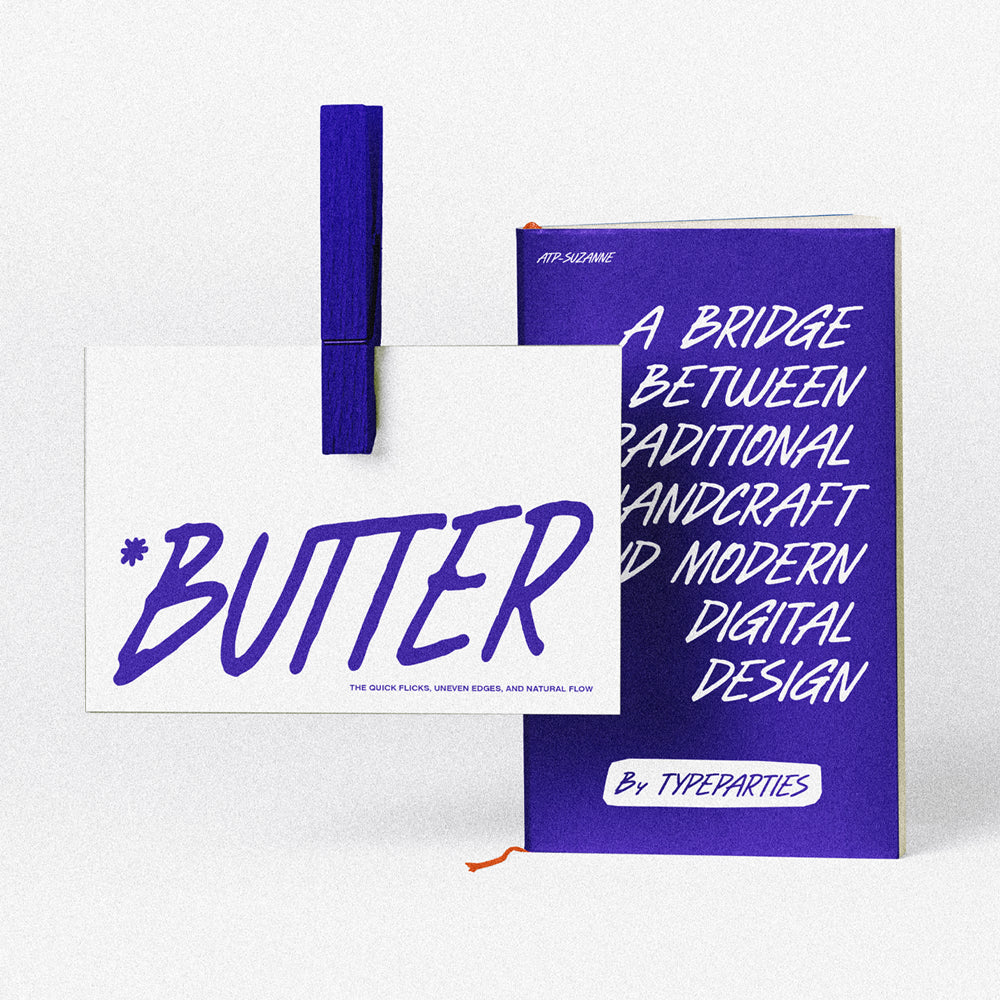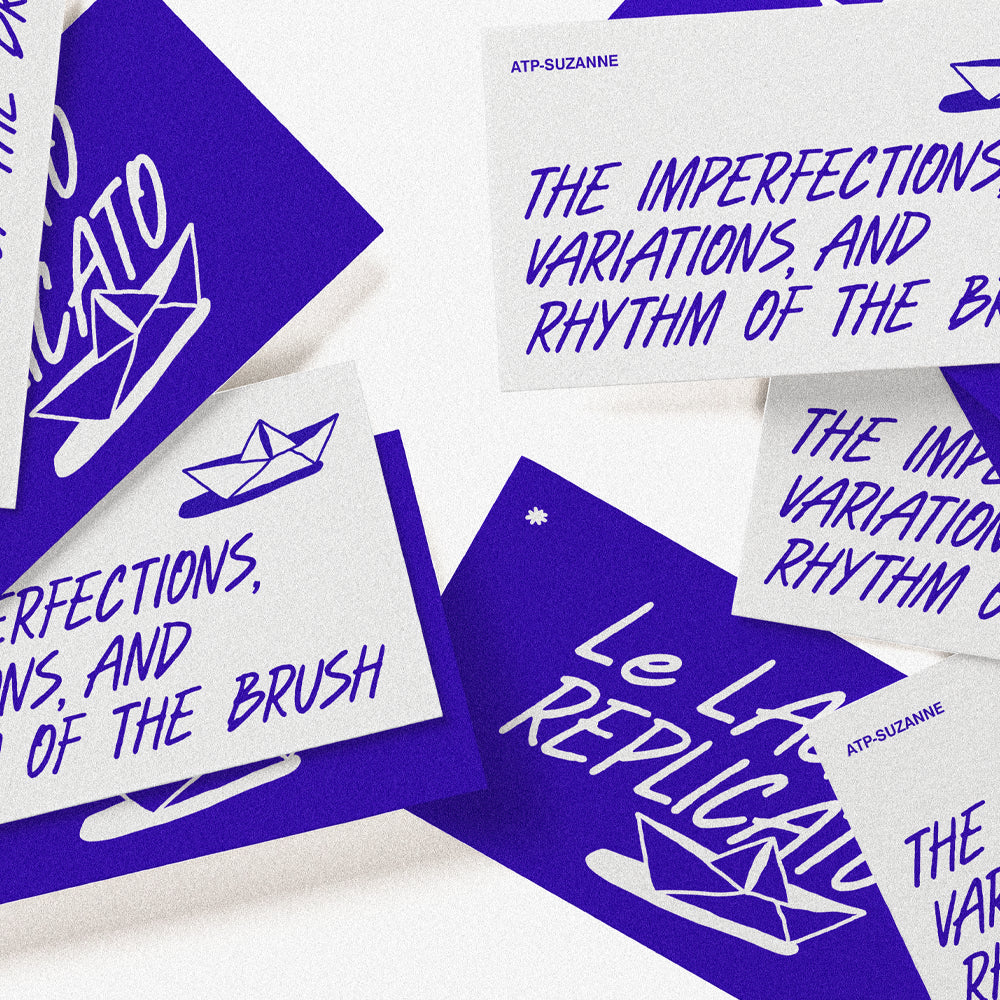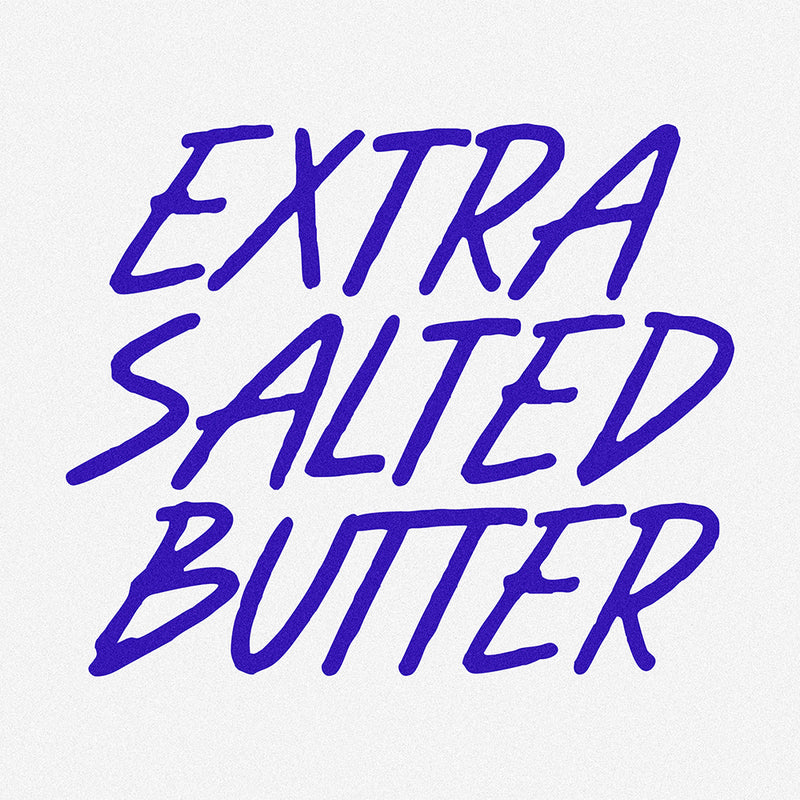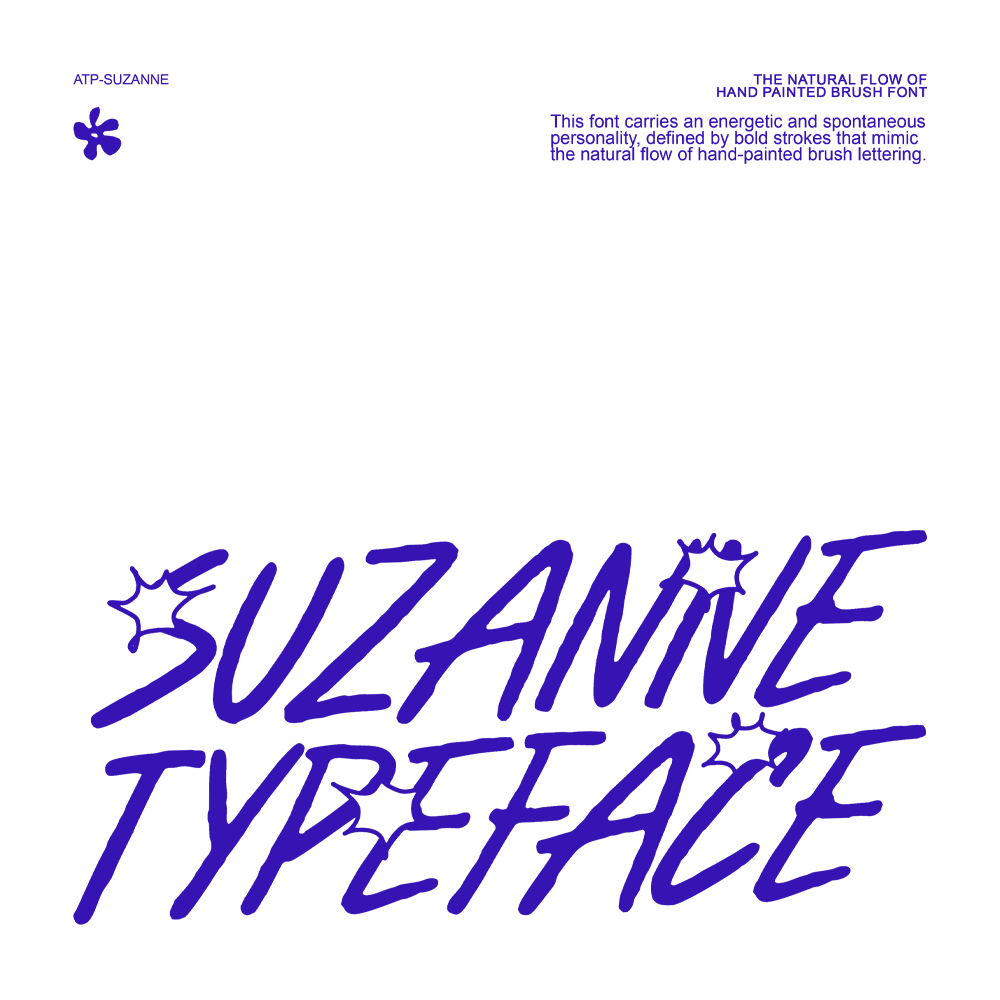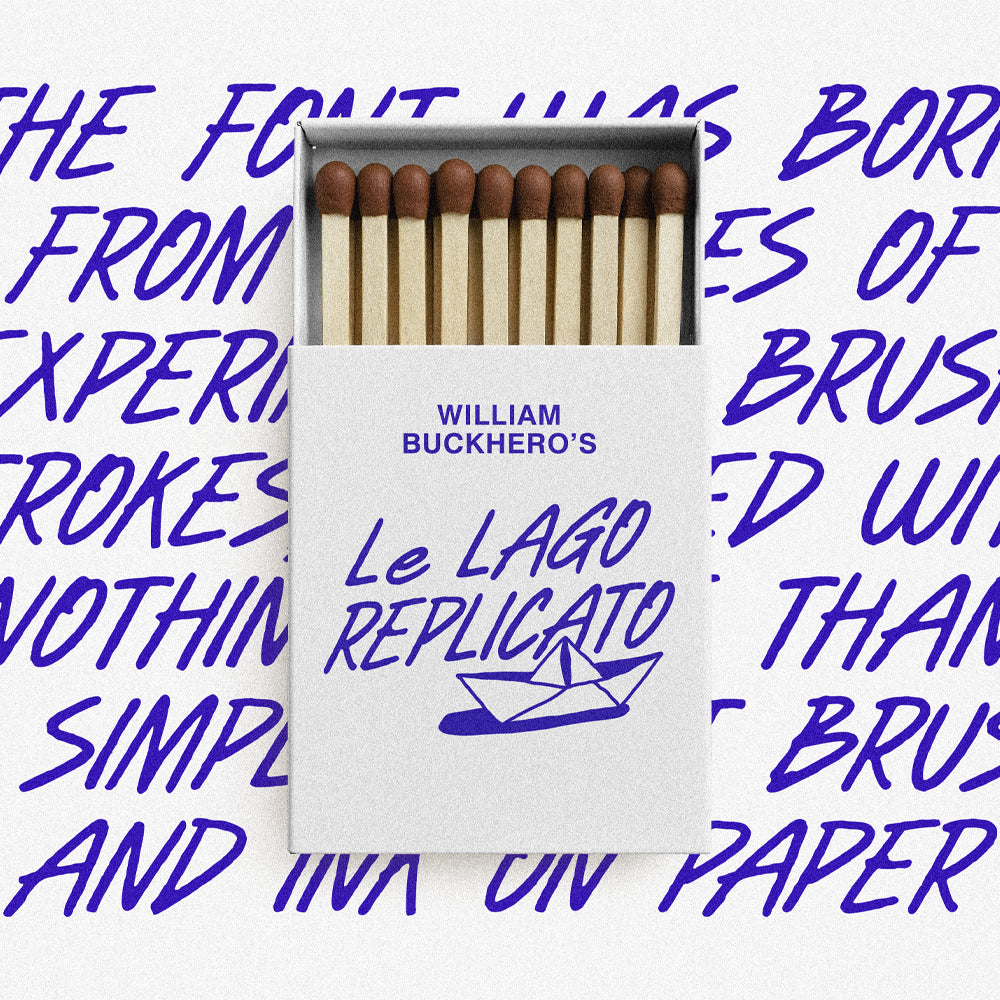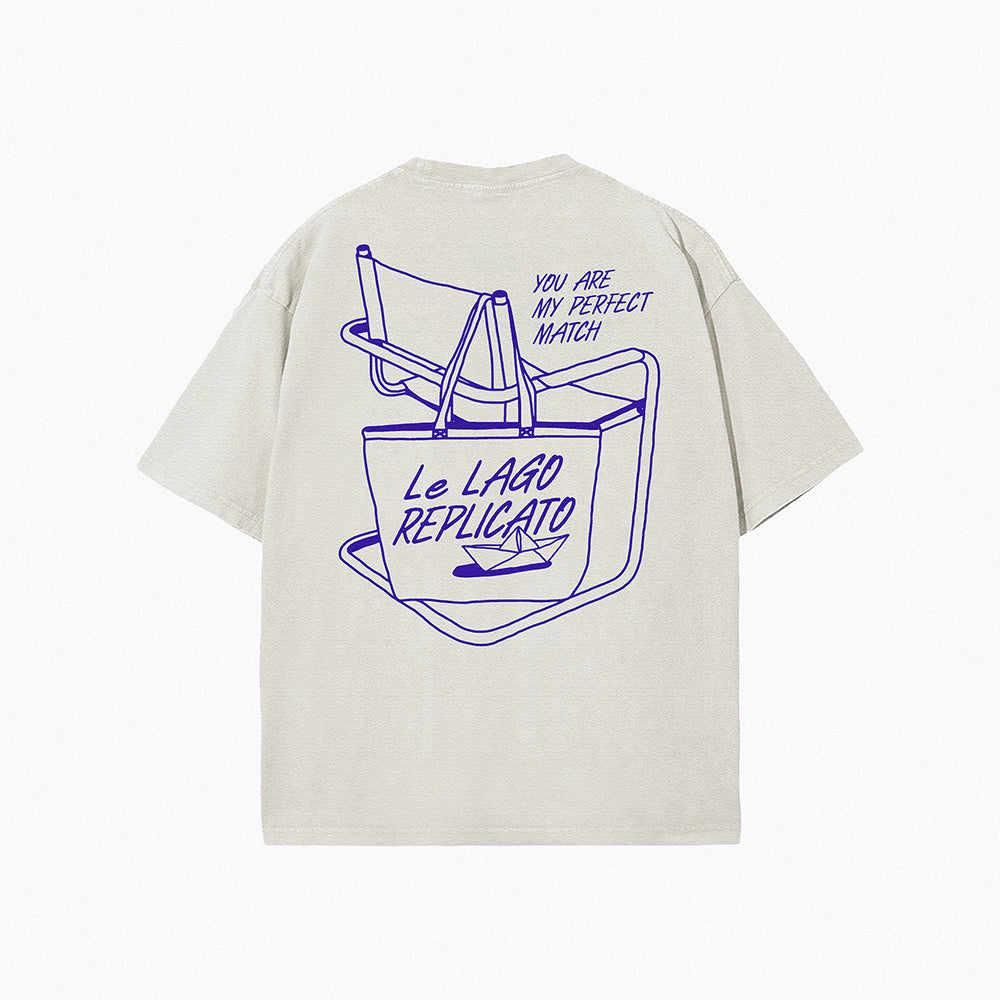
Suzanne - Handwritten Display Font
Suzanne is a handwritten display font featuring skinny strokes that emulate the look of hand-painted brush lettering. It includes uppercase and lowercase letters, numerics, punctuation, and multilingual support, available in both .otf and .ttf formats.